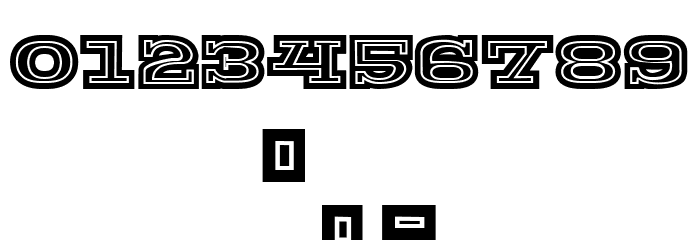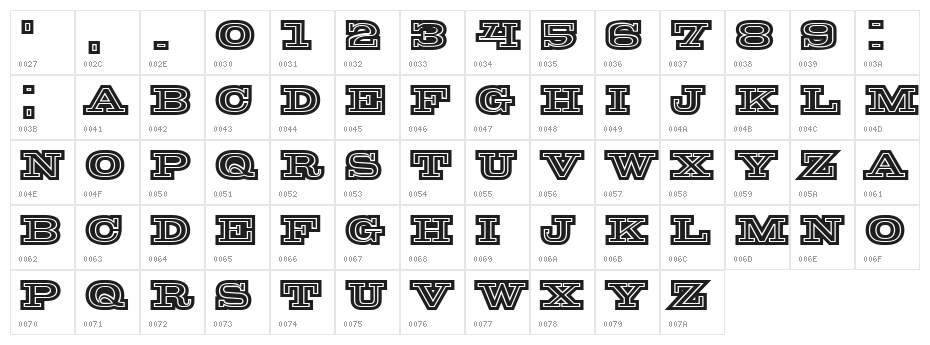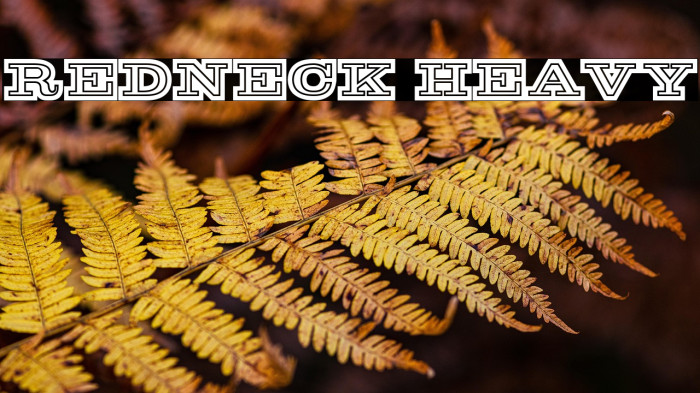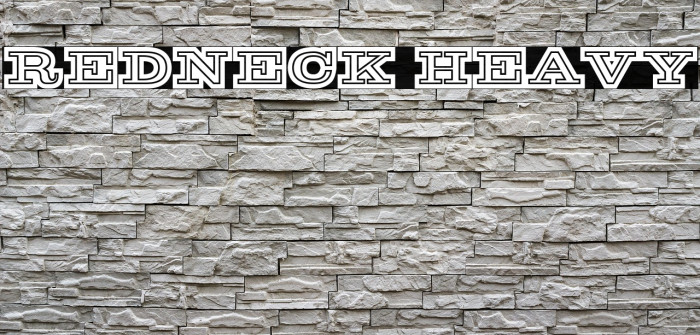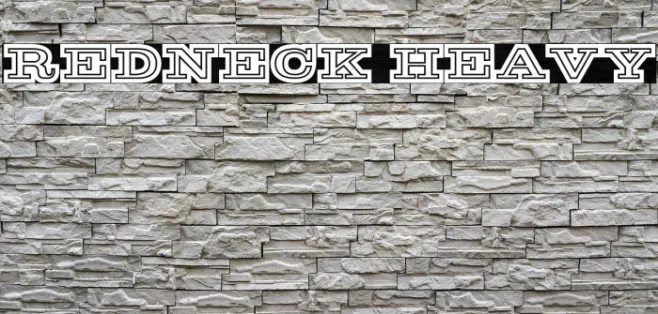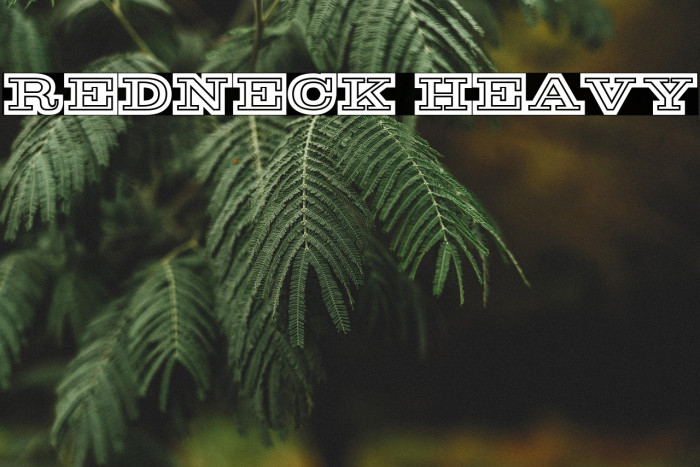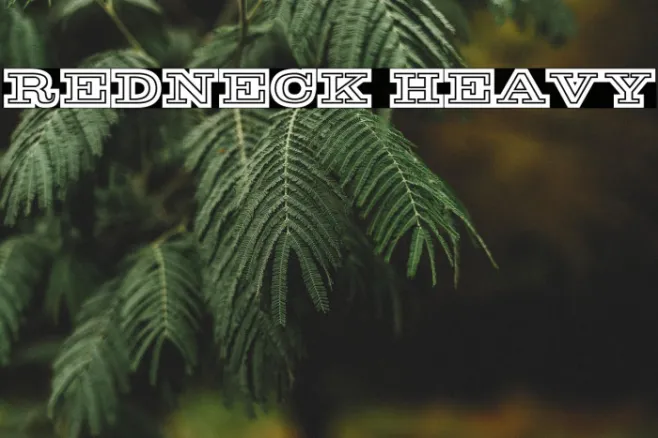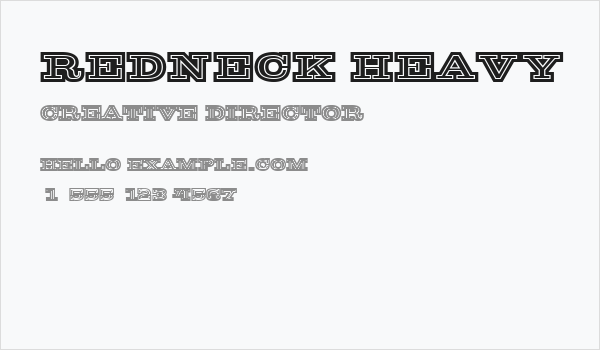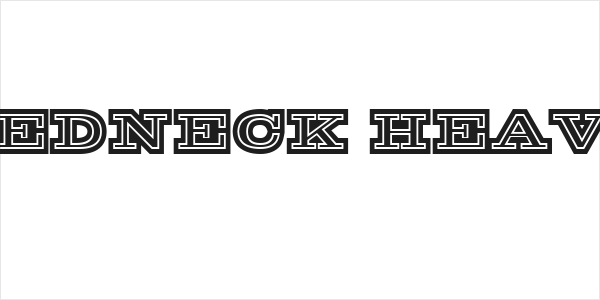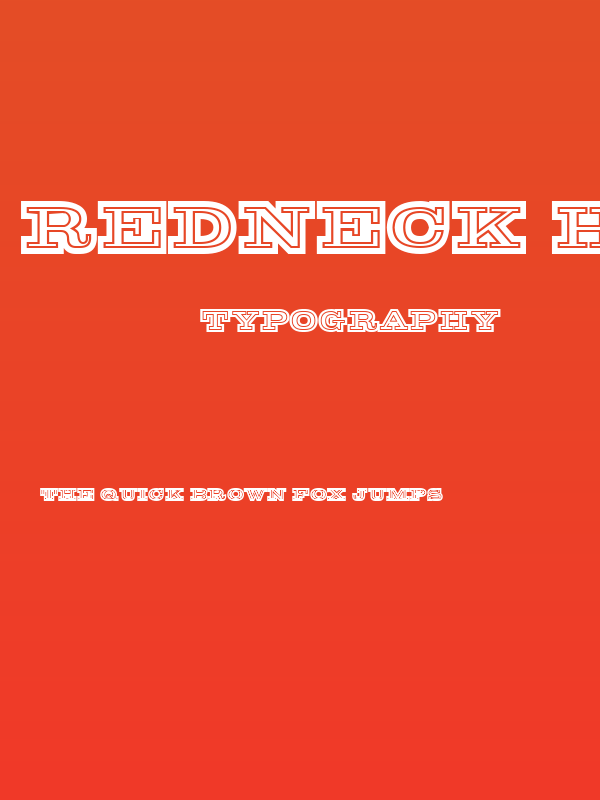
Redneck Heavy Font
Redneck Heavy Description
This font features a bold, decorative style with a strong presence. The characters are outlined with a double-layered effect, giving them a three-dimensional appearance. The uppercase letters are robust and commanding, while the numbers maintain the same boldness and style. The special characters are designed to match the overall aesthetic, making them suitable for attention-grabbing designs. The font's unique style is reminiscent of vintage signage, making it ideal for projects that require a touch of nostalgia or a bold statement.
| Proposed Projects | Ideal for posters, signage, logos, and any design requiring a bold, vintage aesthetic. |